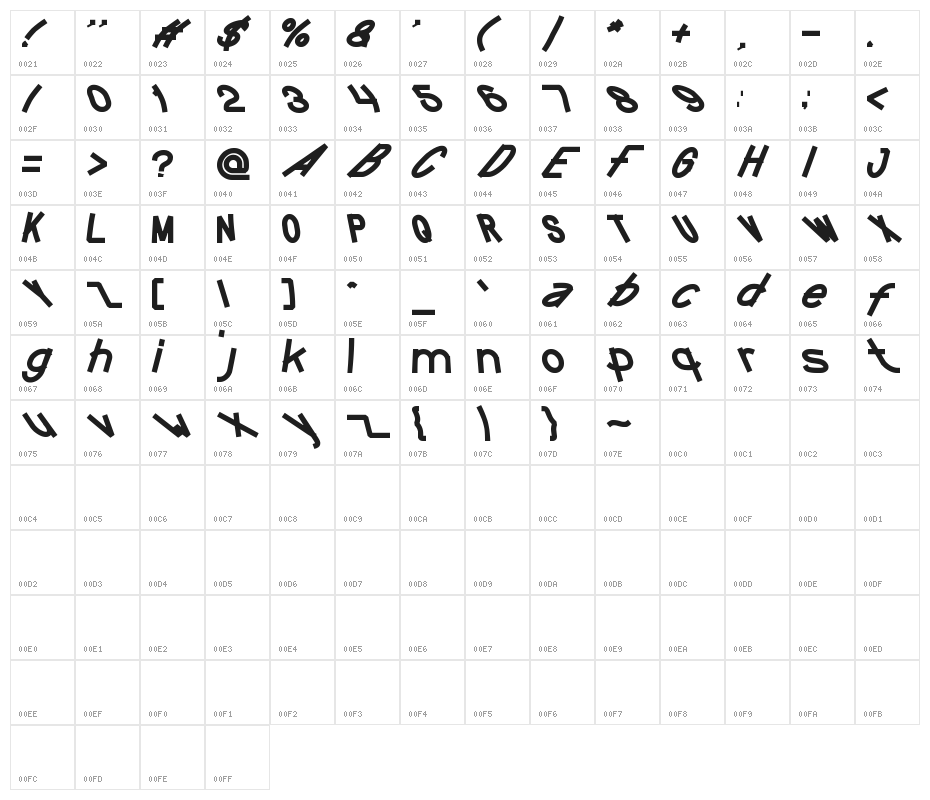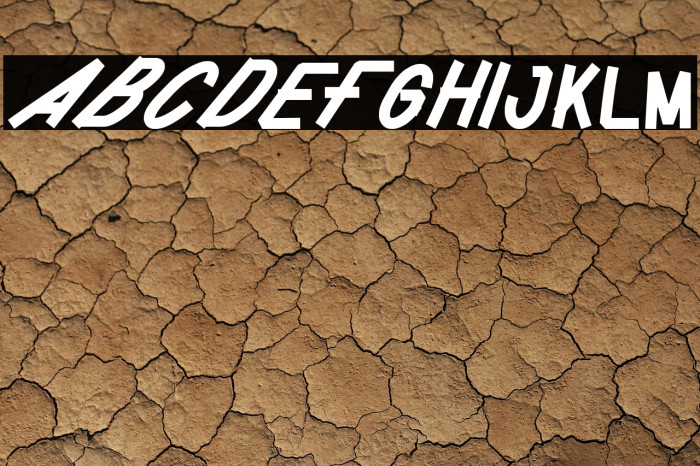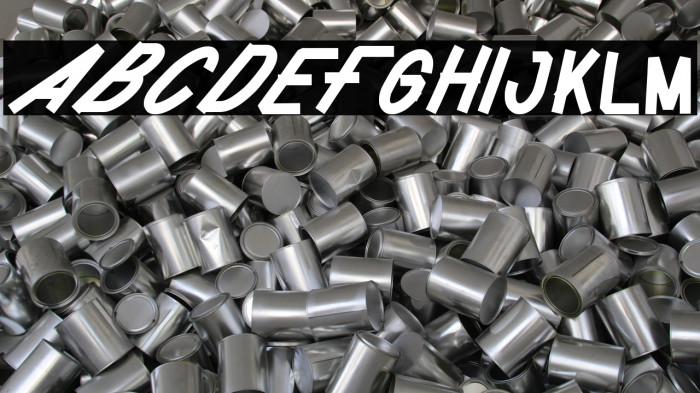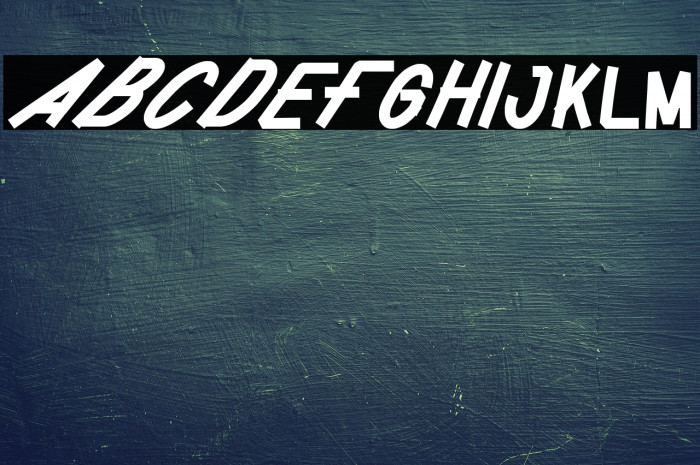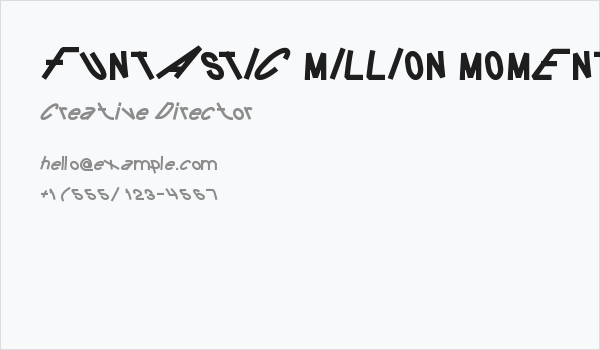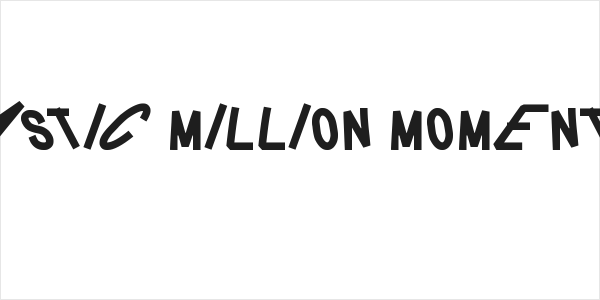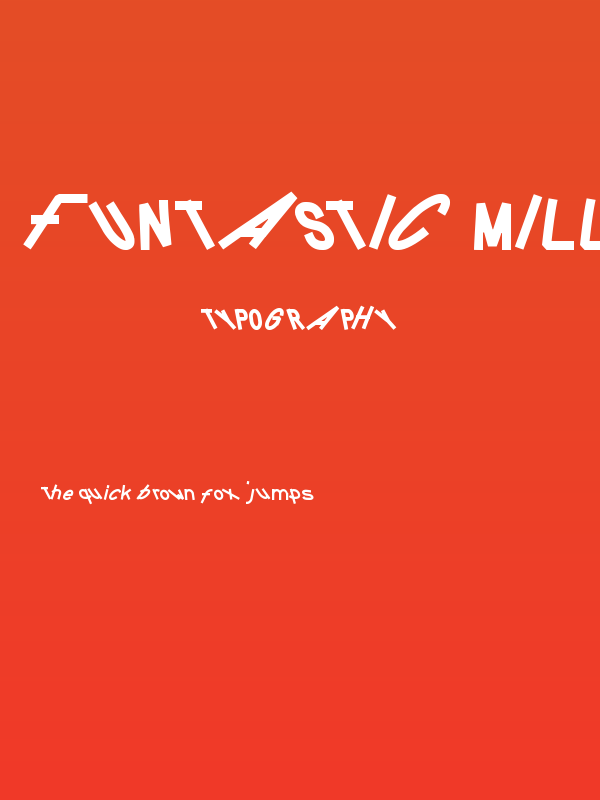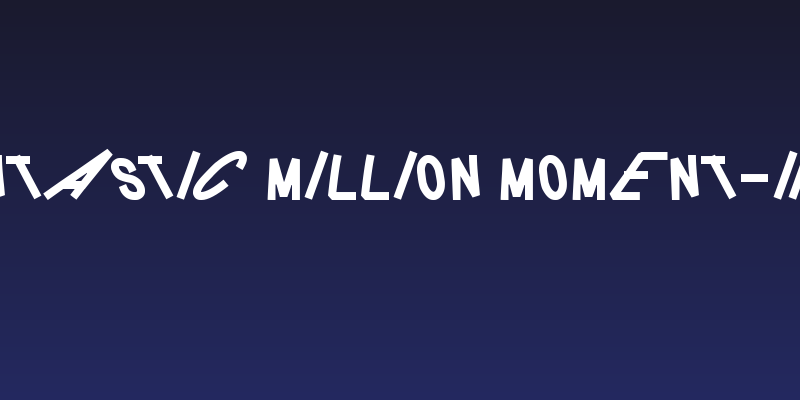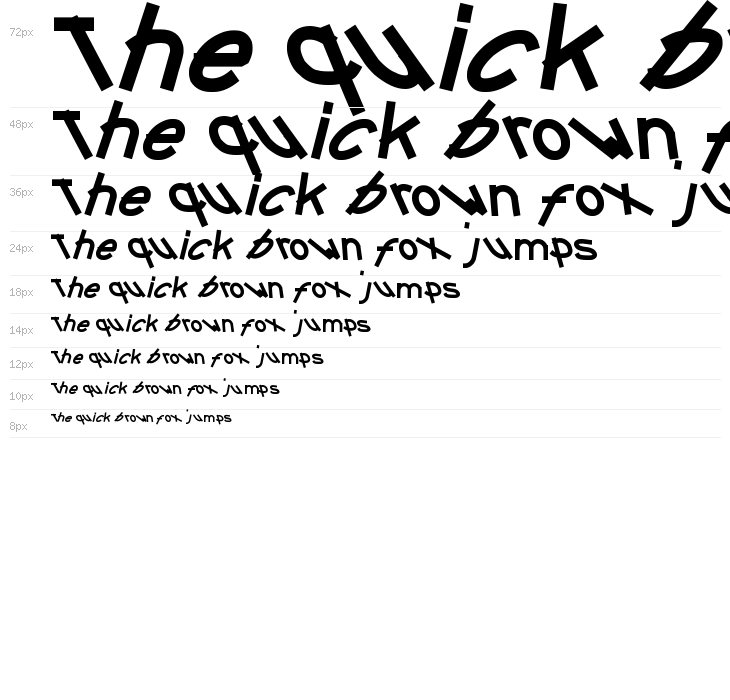
FUNTASTIC MILLION MOMENT-Iight Font
FUNTASTIC MILLION MOMENT-Iight Description
This font features a playful and dynamic design with a strong sense of movement. The letters are slightly slanted, giving a sense of speed and energy. The strokes are bold and consistent, with a slight variation in thickness that adds to its lively appearance. The uppercase letters are particularly striking, with sharp angles and a sense of forward motion. The lowercase letters maintain this energetic style, while being slightly more rounded. The numerals and special characters are designed to match the overall aesthetic, ensuring a cohesive look across all elements.